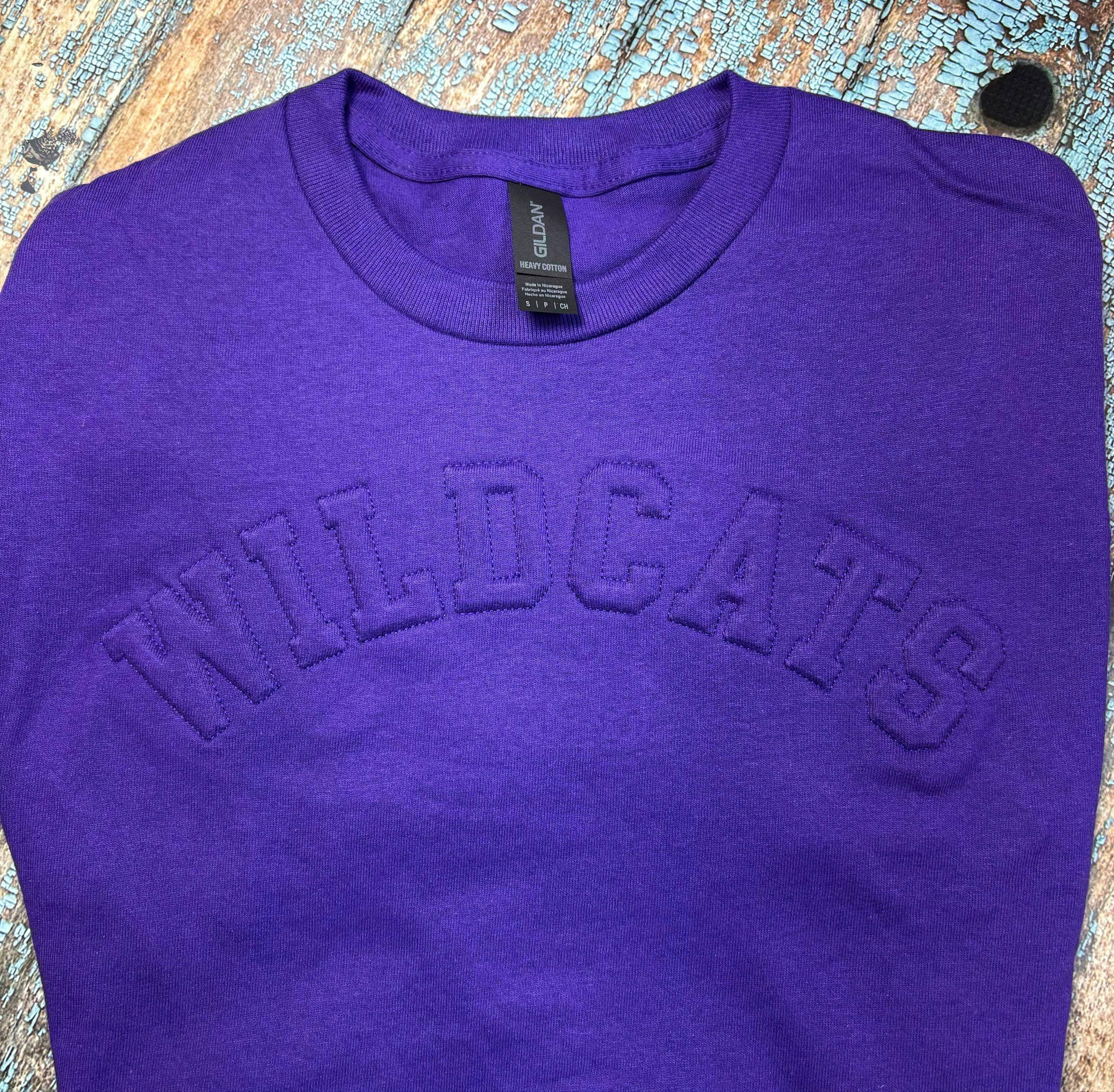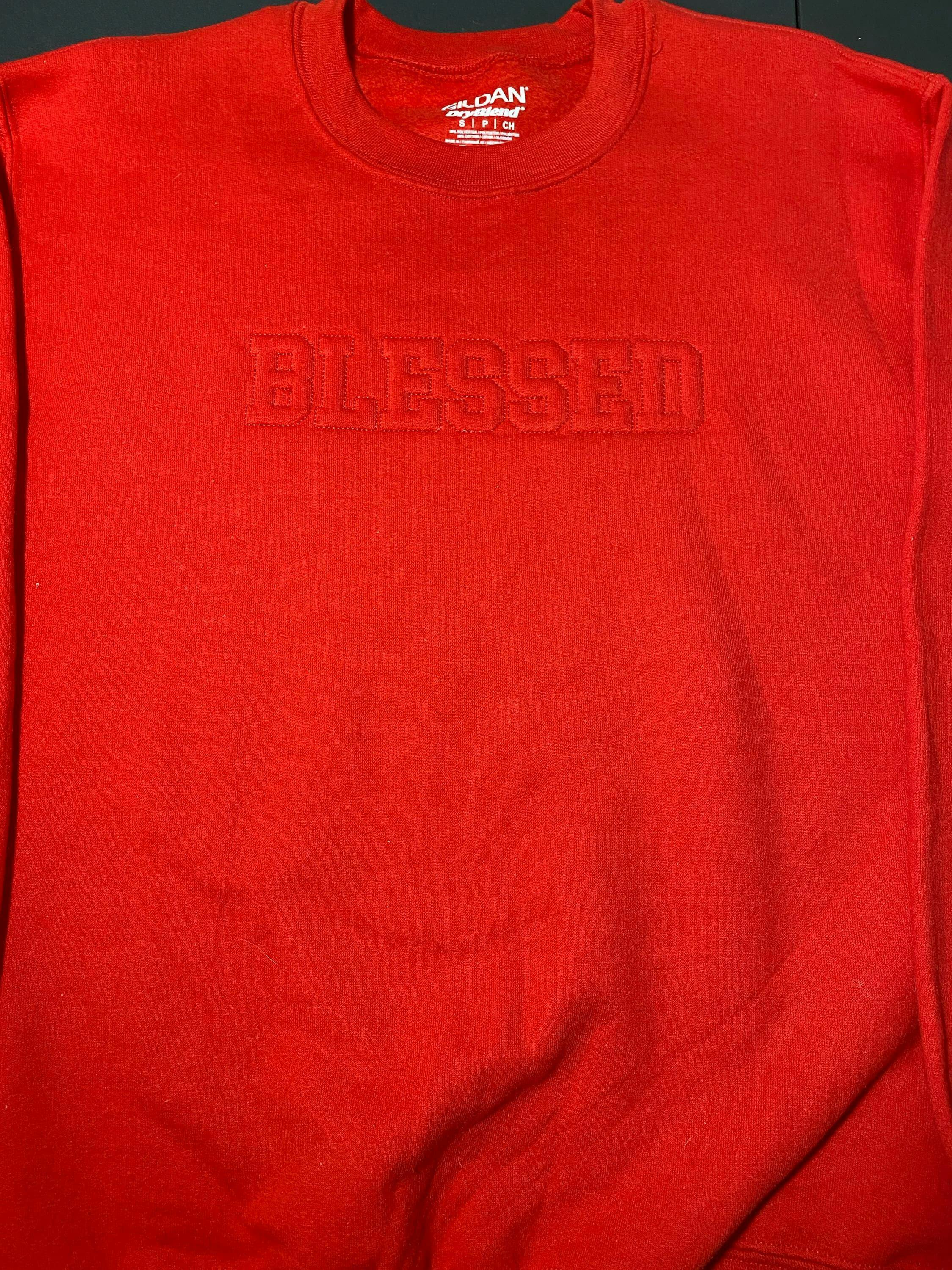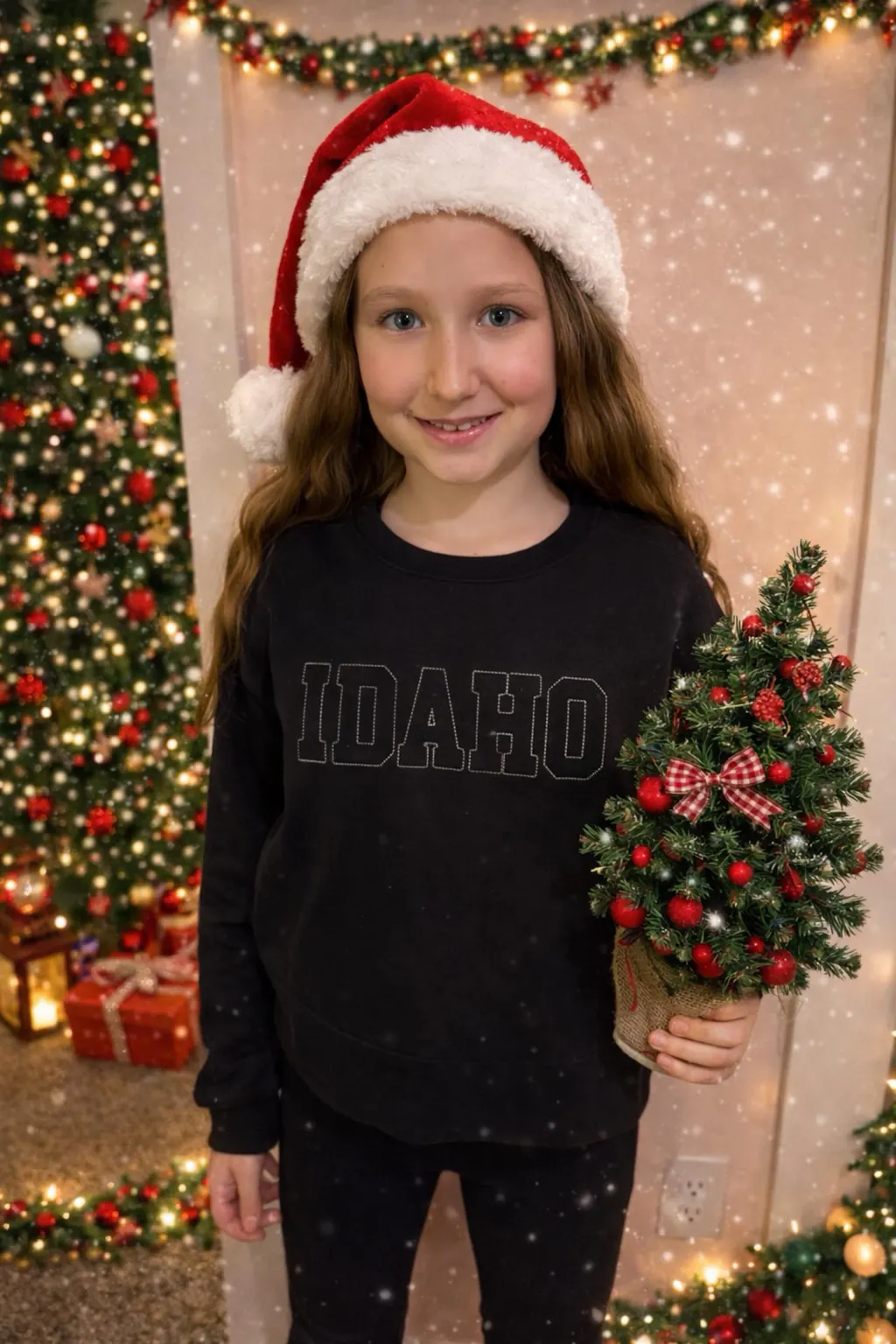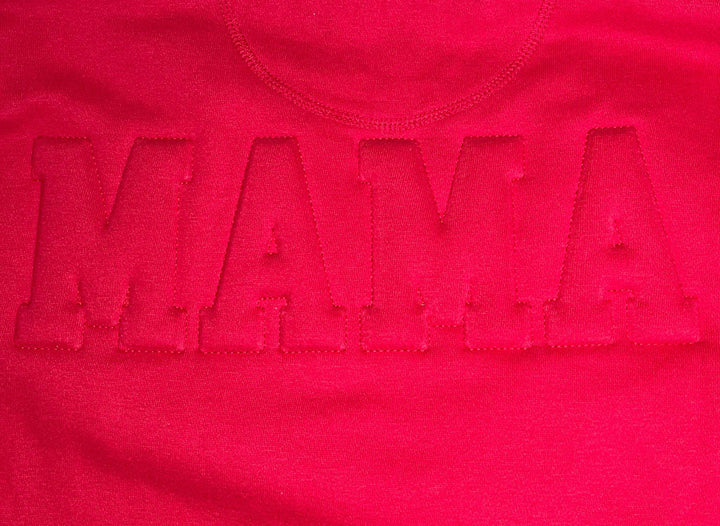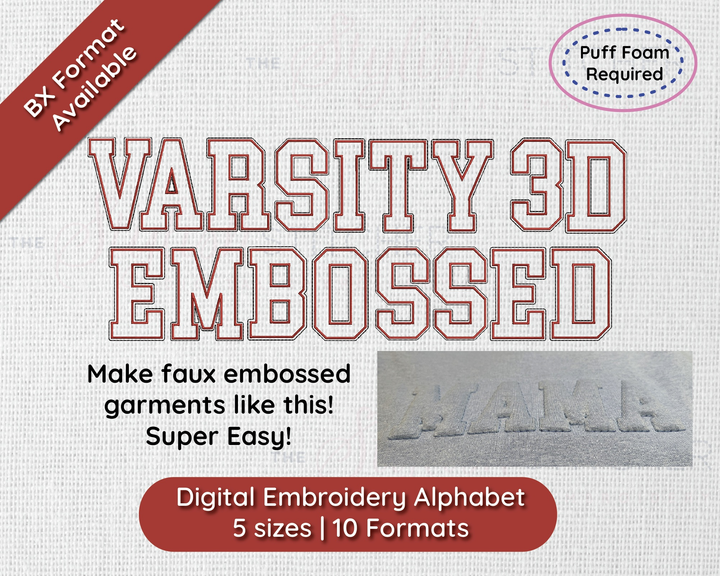
Photograph of Varisty 3D Embossed embroidery font
Video showcasing stitched out 3D Varsity Embossed font
Photograph of inside stitching of 3D Varsity Embossed embroidery font
Varsity 3D Embossed Puff Digital Embroidery Font
Introducing 3D Varsity Embossed — The easiest way to create the trendy look of embossing using puff foam and en embroidery machine! This font makes it super easy to create this look at home - no scissors or knives needed to cut your foam - let the machine do it for you!
Included: Uppercase Letters, Numbers
Stitch Type: Satin Stitch for 3D Puff, Triple Run for outline